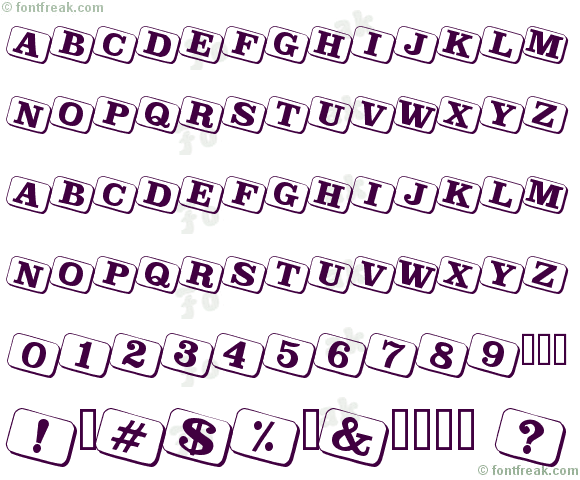
JoyCards
About Joy Cards
The Joy Cards font by Pizzadude is a delightful display typeface that captures the essence of playfulness and whimsy. Characterized by its charming, rounded letterforms and a friendly demeanor, this font is perfect for any project that seeks to spread happiness and joy. The strokes are moderately thick with a consistent weight, providing easy readability while maintaining a lighthearted aesthetic. The overall spacing is generous, allowing for a clean and airy composition, making it visually appealing for various applications.
Joy Cards shines in several specific use cases, making it a versatile choice for graphic designers and creative professionals alike. It works wonderfully for crafting vibrant wedding invitations, where its playful nature can set a joyous tone. Additionally, it’s ideal for children’s party invitations and playful branding for family-oriented businesses. Restaurant menus can also benefit from the friendly vibe of Joy Cards, especially for cafes or bistros that aim to create a welcoming atmosphere. Furthermore, this font can add a unique touch to greeting cards and social media graphics, appealing to content creators looking to engage their audience with a cheerful aesthetic.